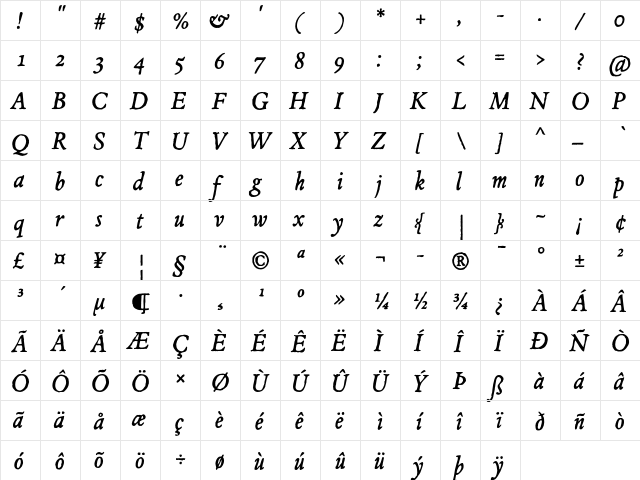
JMH Espinosa Italic
Design Context for JMH Espinosa Typeface
JMH Espinosa offers clean, dependable letterforms without strong stylistic allegiance, making it a practical choice for designers who need flexibility. The slanted form adds forward momentum and visual energy.